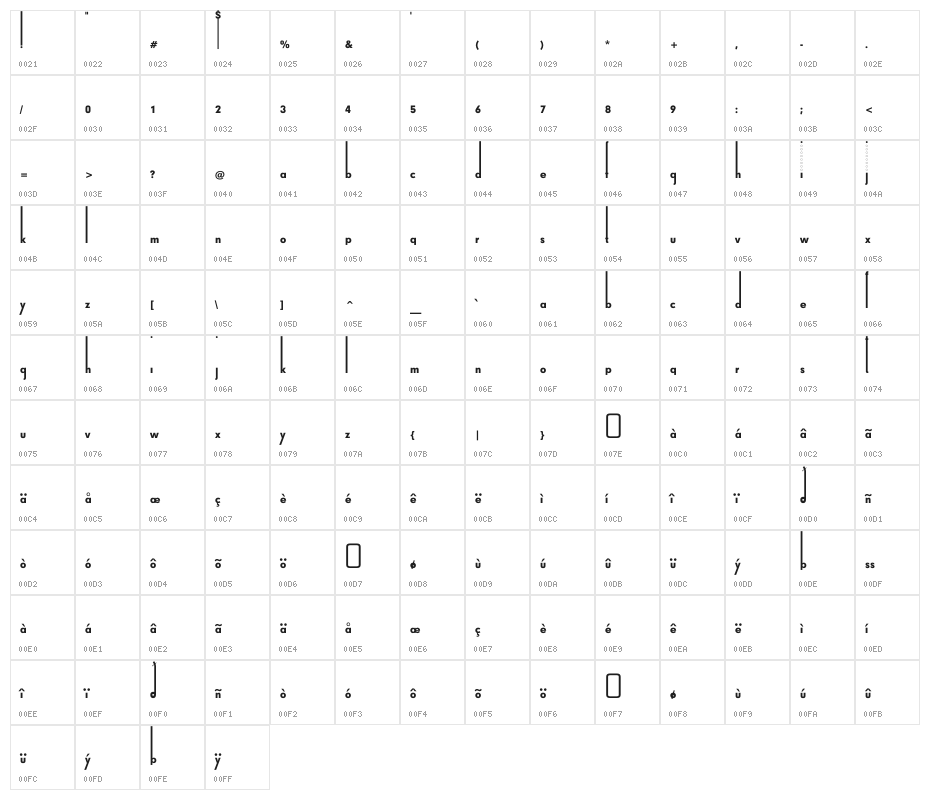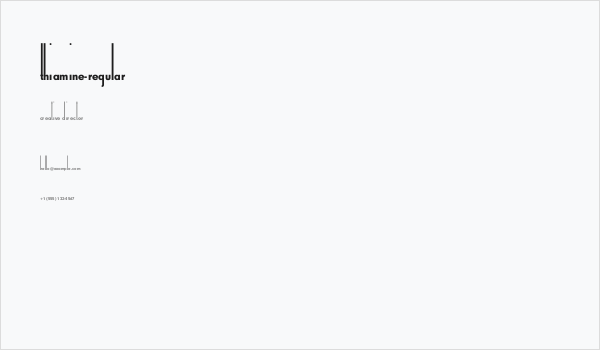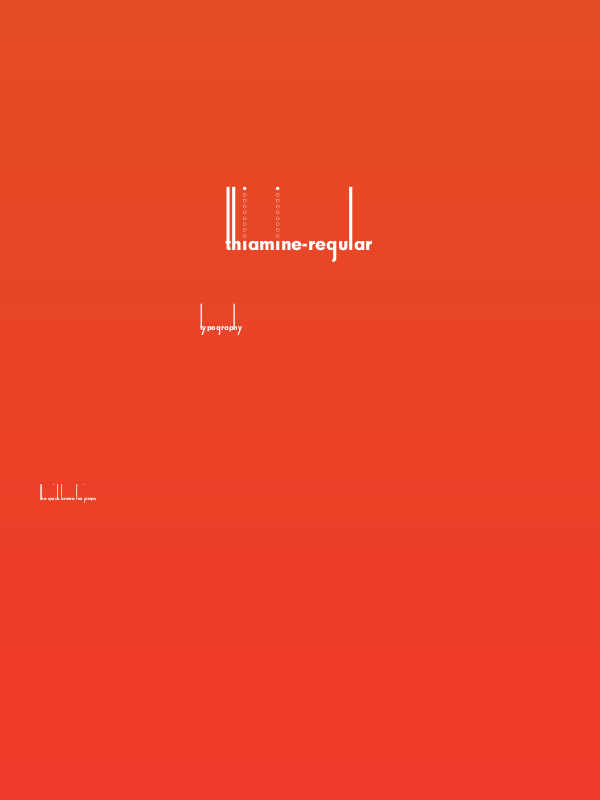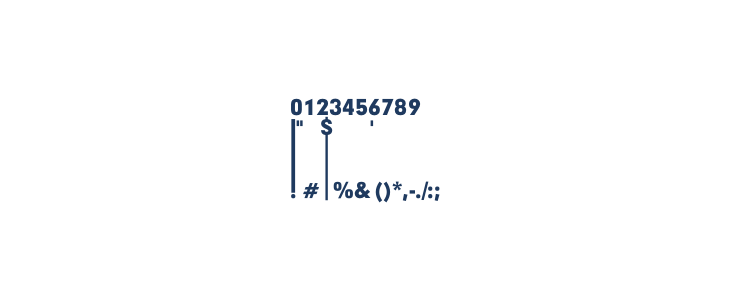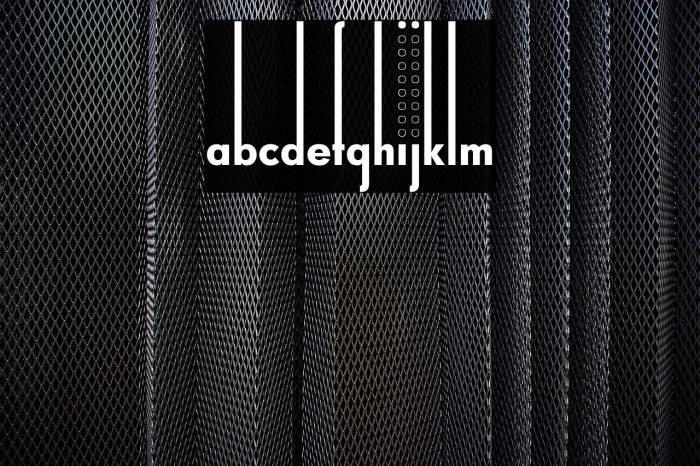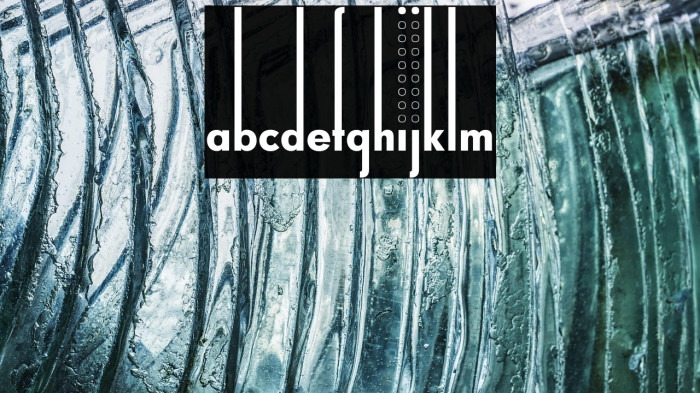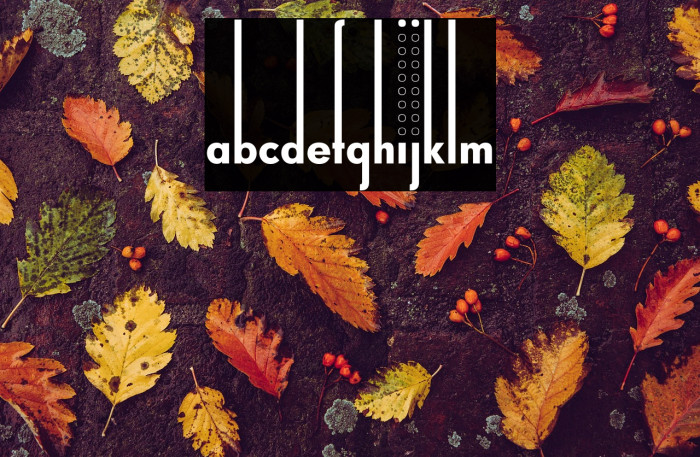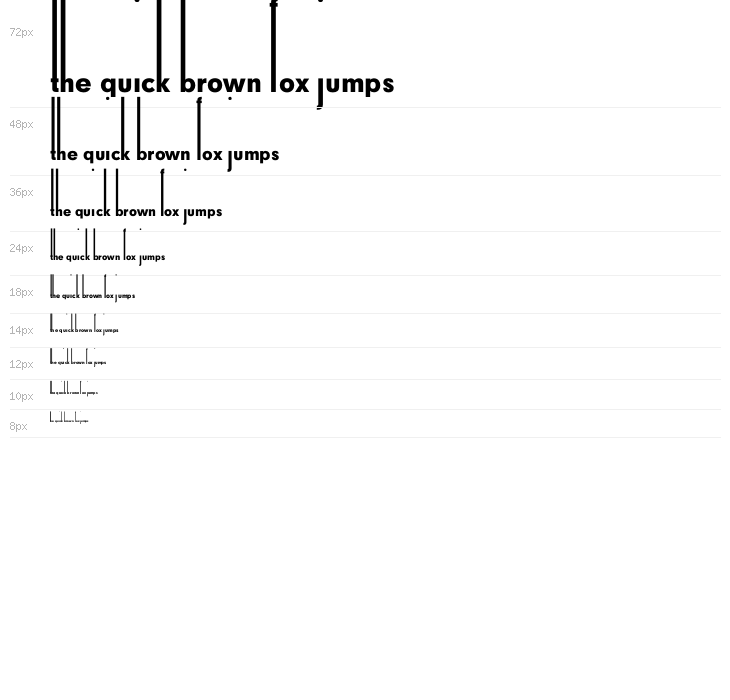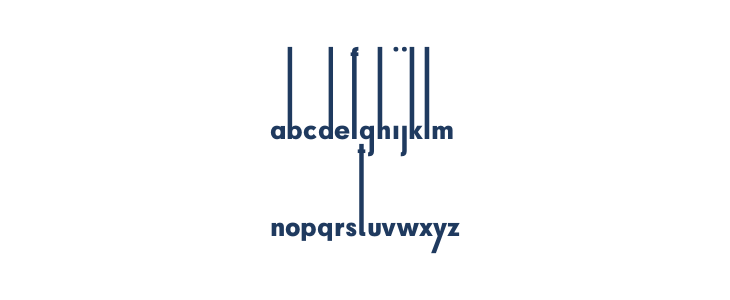
Thiamine-Regular Font
Thiamine-Regular Description
This font features a clean and modern sans-serif design with uniform stroke widths, giving it a balanced and contemporary appearance. The characters are well-defined with a geometric influence, making them highly legible. The uppercase and lowercase letters maintain a consistent style, while the numerals and special characters are straightforward and easy to read. The overall design is minimalistic, emphasizing clarity and simplicity, which makes it versatile for various applications.
| Proposed Projects | Ideal for branding, web design, advertising, and editorial projects where clarity and modernity are essential. |